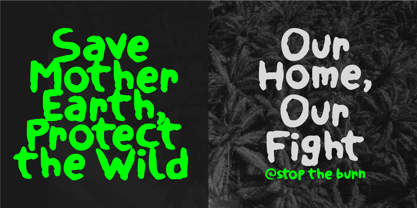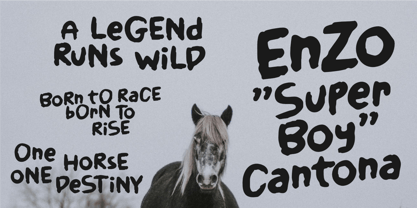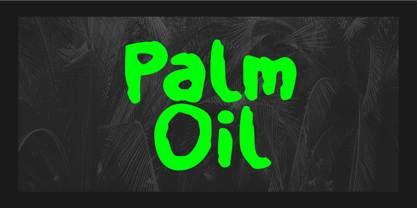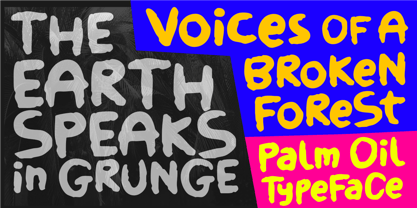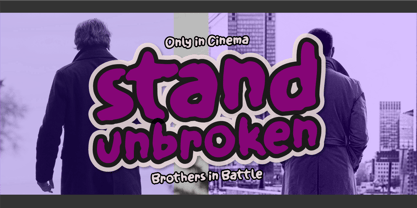
Palm Oil
The Palm Oil Font Family was designed by Aldy Sidik and published by Epiclinez. Palm Oil contains 1 styles. More about this family
Palm Oil Typeface is a bold, distressed grunge display font that draws inspiration from the raw textures of erosion, cracked surfaces, and environmental impact. Its rough edges and gritty style make it an ideal choice for movie titles, protest posters, album covers, gaming graphics, branding, and streetwear designs. Each letter embodies strength, rebellion, and urgency, reflecting the powerful message behind its name. This eroded grunge font is designed for creatives seeking to make a statement—whether for activist campaigns, striking advertising, impactful headlines, or rebellious typography projects. With its rugged aesthetic, Palm Oil Typeface excels in urban designs, environmental awareness art, and cinematic titles, providing your work with a raw and authentic edge. If you seek a bold distressed typeface that merges strength, rebellion, and a narrative of environmental storytelling, this font is the perfect choice to infuse power and urgency into your designs.